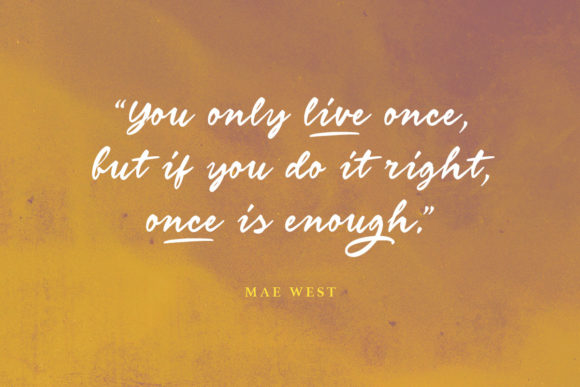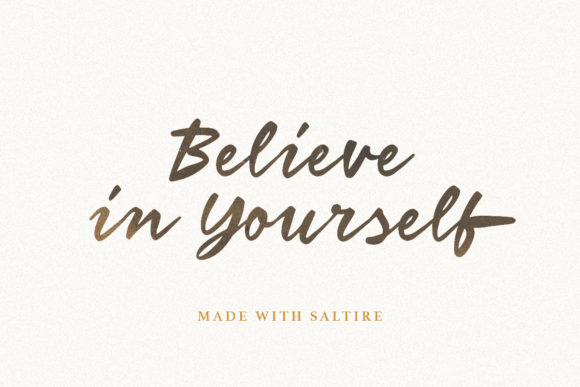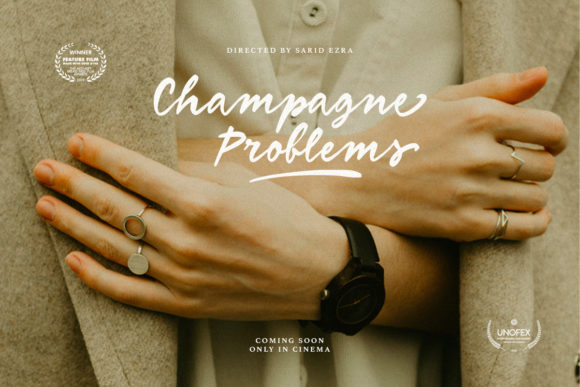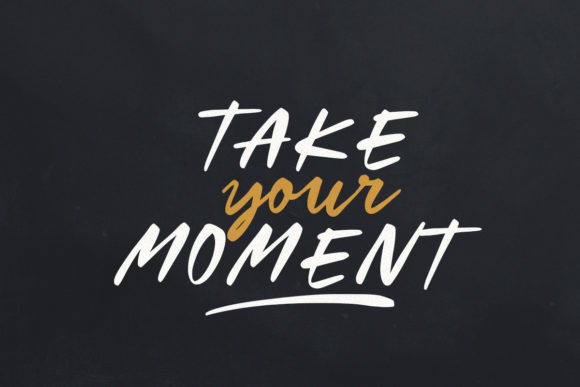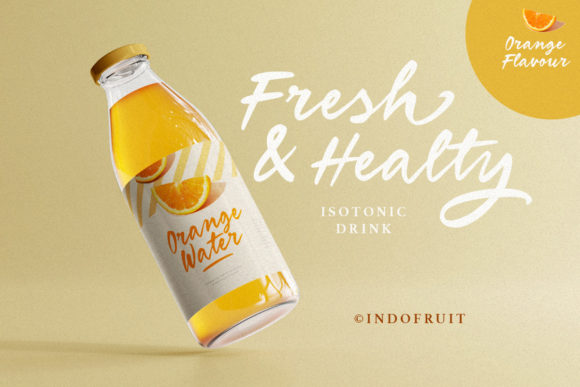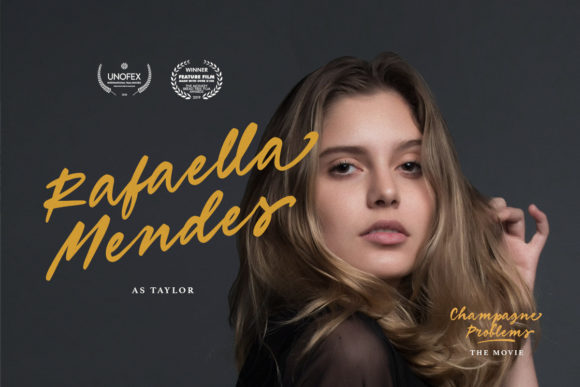
Introduction to Saltire Font
Have you ever been in the middle of a creative project, pouring your heart and soul into it, only to be held back by the perfect font to match your vision? That’s where the Saltire Font comes in – a game-changing design resource that can elevate your ideas to new heights.
As a designer, you know how crucial it is to have a high-quality font that complements your project’s style and tone. The Saltire Font is a beautifully crafted script with a modern look and feel, making it the perfect addition to any creative endeavor. Whether you’re working on a free download or a paid project, this versatile font is sure to bring a touch of sophistication and elegance to your design.
What sets the Saltire Font apart is its unique ability to thrive on a transparent background, allowing your creative project to truly shine. With its modern design and free download availability, this font is a valuable resource for designers of all levels, providing endless possibilities for creative expression.
Key Features of Saltire Font
- High-quality typography for creative projects, ensuring a professional and polished look.
- Unique characteristics, such as intricate details and ornate designs, add a touch of sophistication to any creative project.
Honest Review: Saltire Font
- ✨ Unique and bold design: The Saltire Font has a distinctive look that’s perfect for adding a touch of personality to your design.
- ✨ High-quality vector graphics: The font’s crisp and clear lines make it suitable for both digital and print media.
- ✨ Transparent background: This feature allows for seamless integration with any design background, giving you more creative freedom.
- ⚠️ Limited character set: The font only includes a basic set of characters, which may not be ideal for projects that require a wider range of symbols.
- ⚠️ Not ideal for complex text: Due to its bold design, the Saltire Font may not be the best choice for long blocks of text or complex typography.
Overall, I think the Saltire Font is a great design resource for those looking to add a unique touch to their creative projects. While it may have some limitations, its high-quality design and transparent background make it a valuable addition to any designer’s toolkit.
The Saltire Font is a versatile design resource that can be used in a variety of creative projects, including:
- Graphics and illustrations
- Presentation and document design
Tips for Getting the Most Out of the Saltire Font
To get the most out of the Saltire Font, be sure to:
- Use the font on a transparent background to create a sense of depth
- Combine the font with other design elements to create a cohesive look